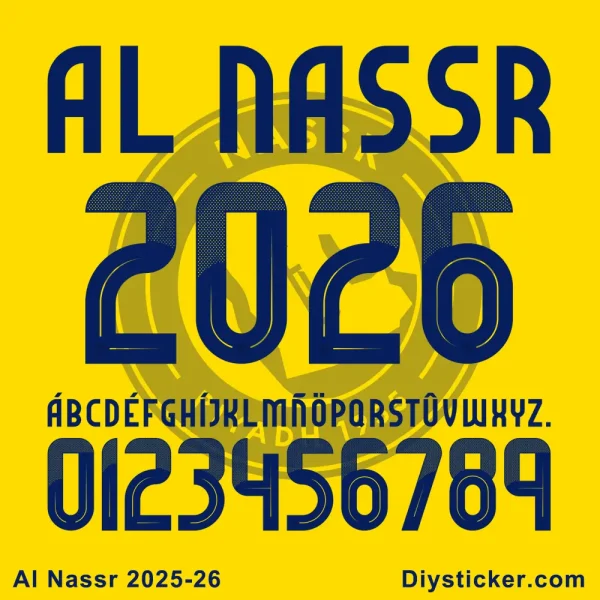
Capture the spirit of Al Nassr with the official 2025-2026 typeface. This premium font pack is essential for fans and designers creating authentic posters, social media graphics, and custom merchandise. Download the complete set including TTF, OTF, and Vector files instantly.
Bring the power and prestige of Al Nassr into your designs with the official Al Nassr 2025-2026 Font. This is the definitive typeface used in the club’s official branding, jerseys, and promotional materials for the upcoming season.